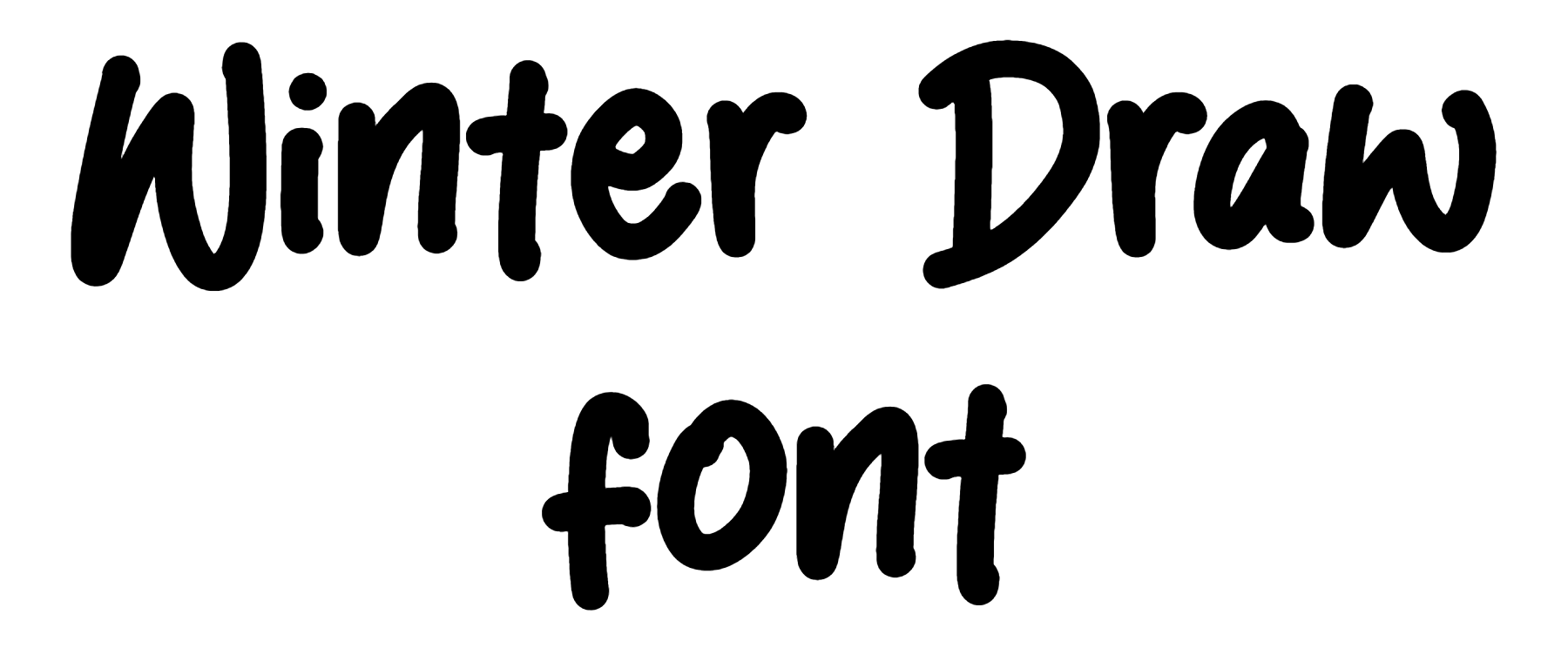
Winter Draw font
Winter Draw
Winter Draw is a handwritten font created by Khurasan. It looks like someone actually wrote it by hand: relaxed, friendly and a little imperfect in a good way. It's a free download, and you can try it with your own text in the preview above first.
What You Can Type With Winter Draw
You get every letter from A to Z in both cases and all the numbers from 0 to 9, which means Winter Draw can handle full sentences, dates and prices. Common punctuation such as &, !, ? and @ is included as well. It doesn't include accented letters such as é or ñ, which makes it an English-only font.
Where Winter Draw Works Best
Winter Draw is a natural fit for greeting cards, journal pages and friendly social posts. Set it a bit larger than you would a normal text font. Handwriting styles lose their charm once they get too small to read comfortably.
Does Winter Draw support accented letters?
No. Winter Draw has no accented letters such as é, ñ or ü, so it's best for English text.